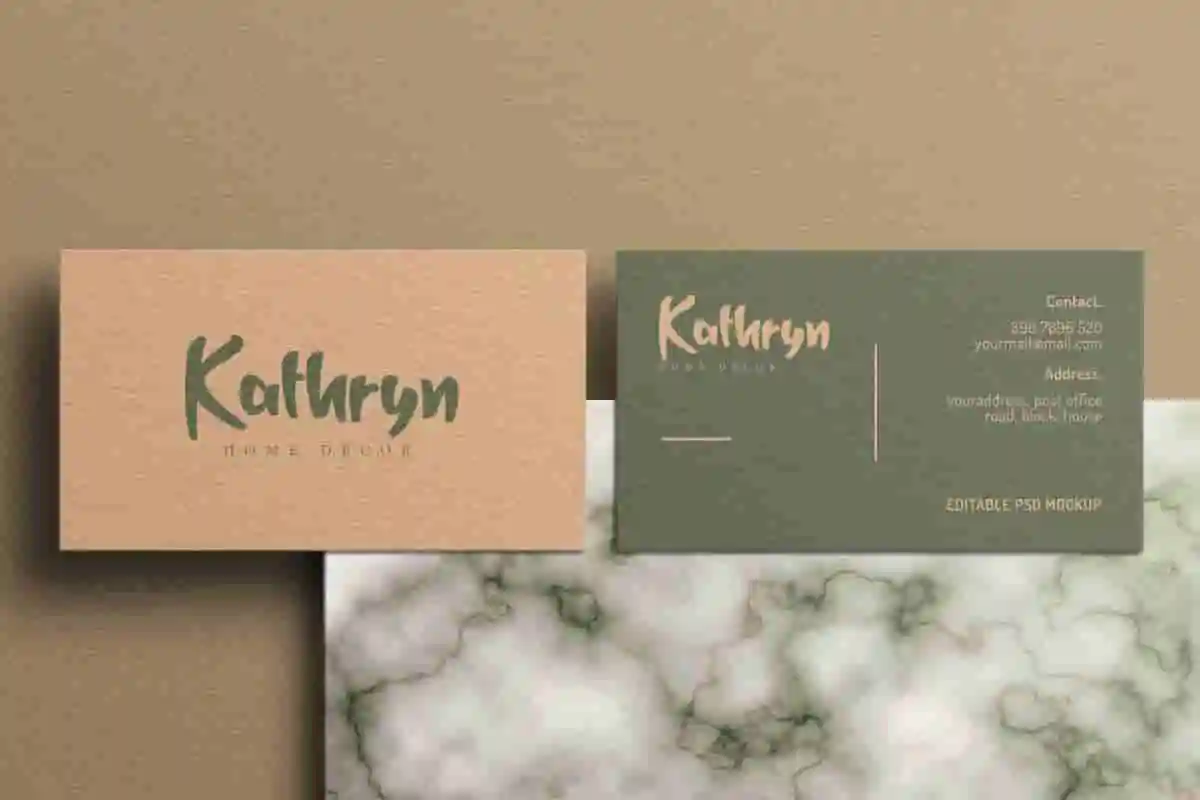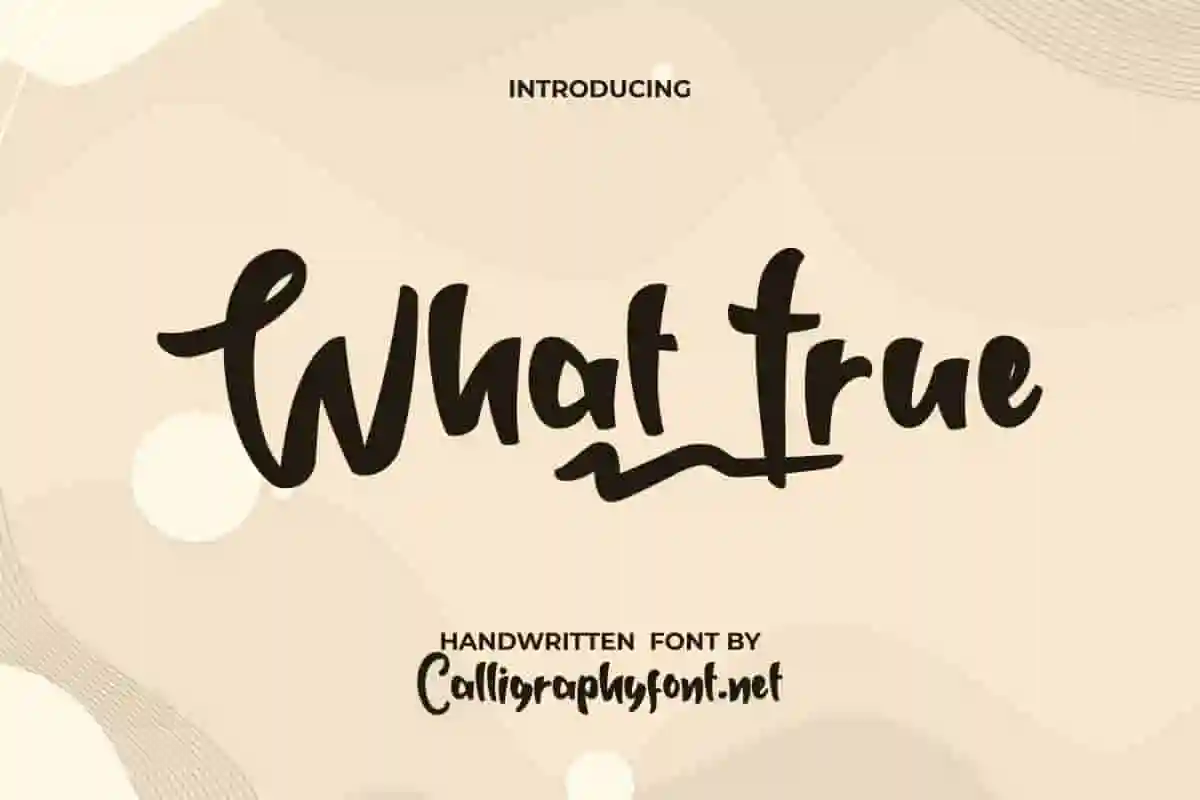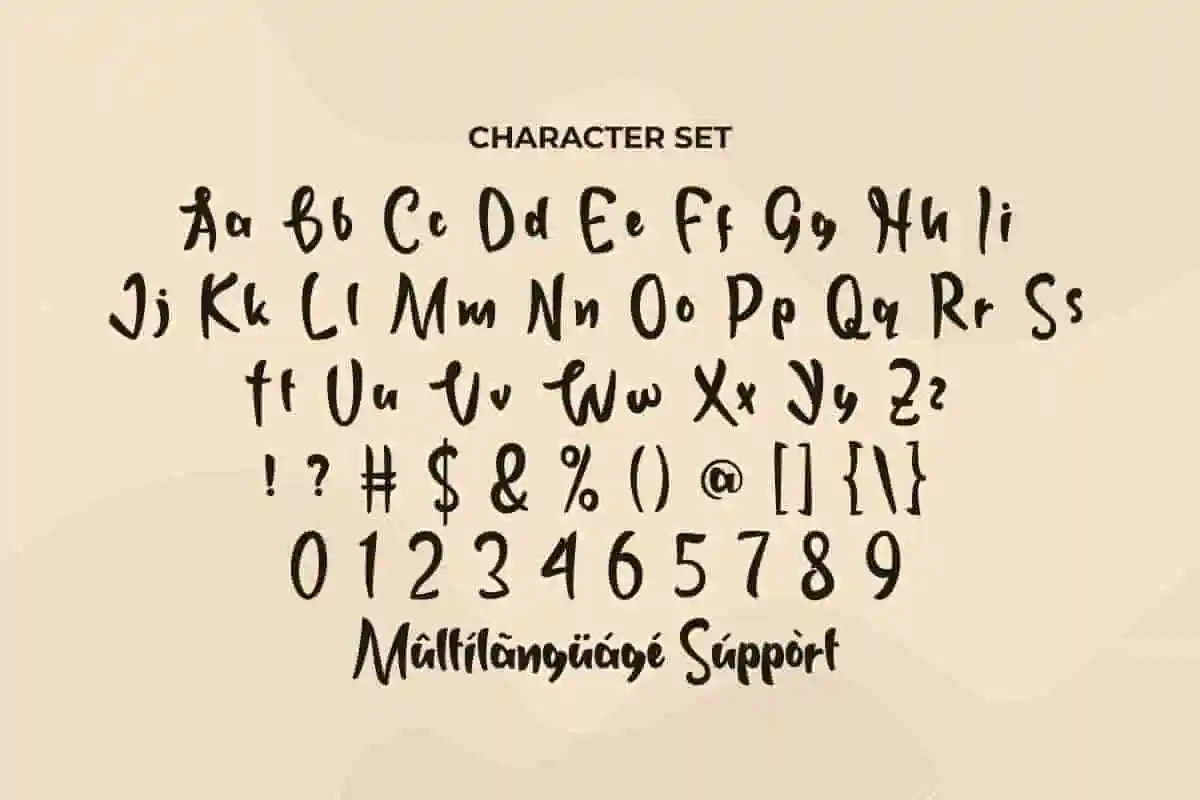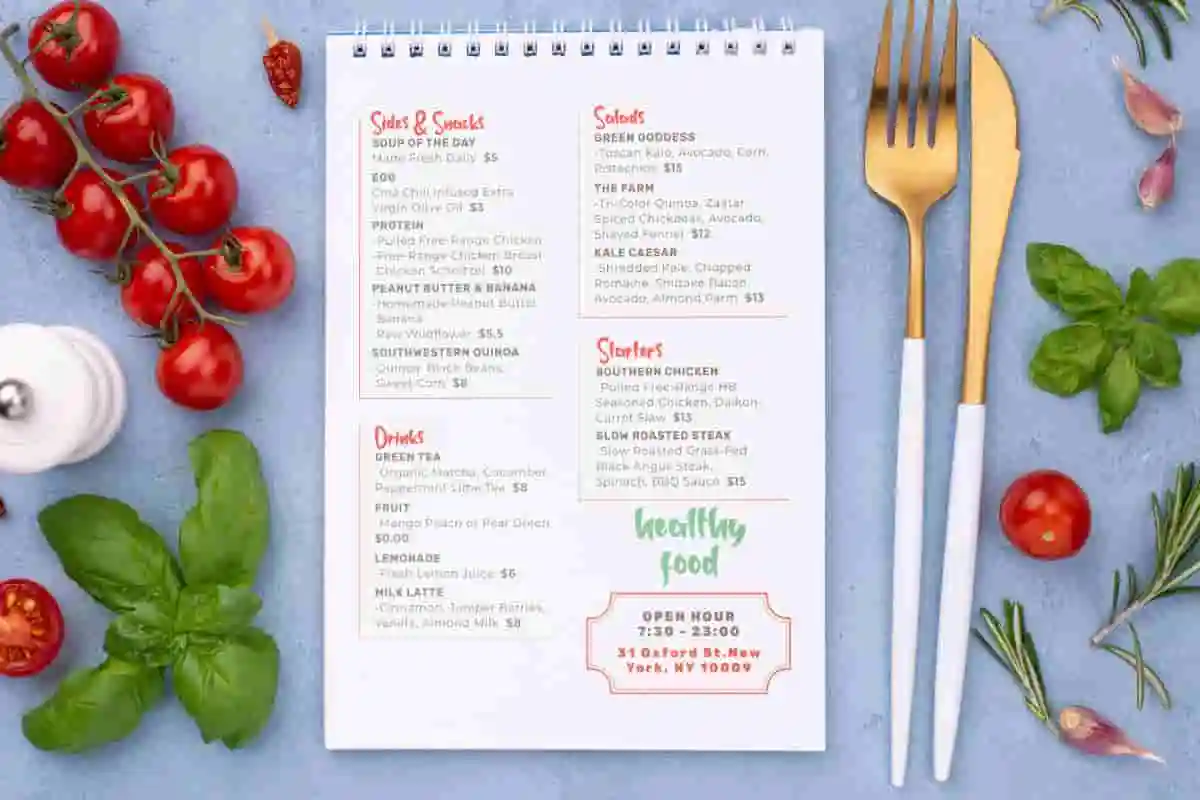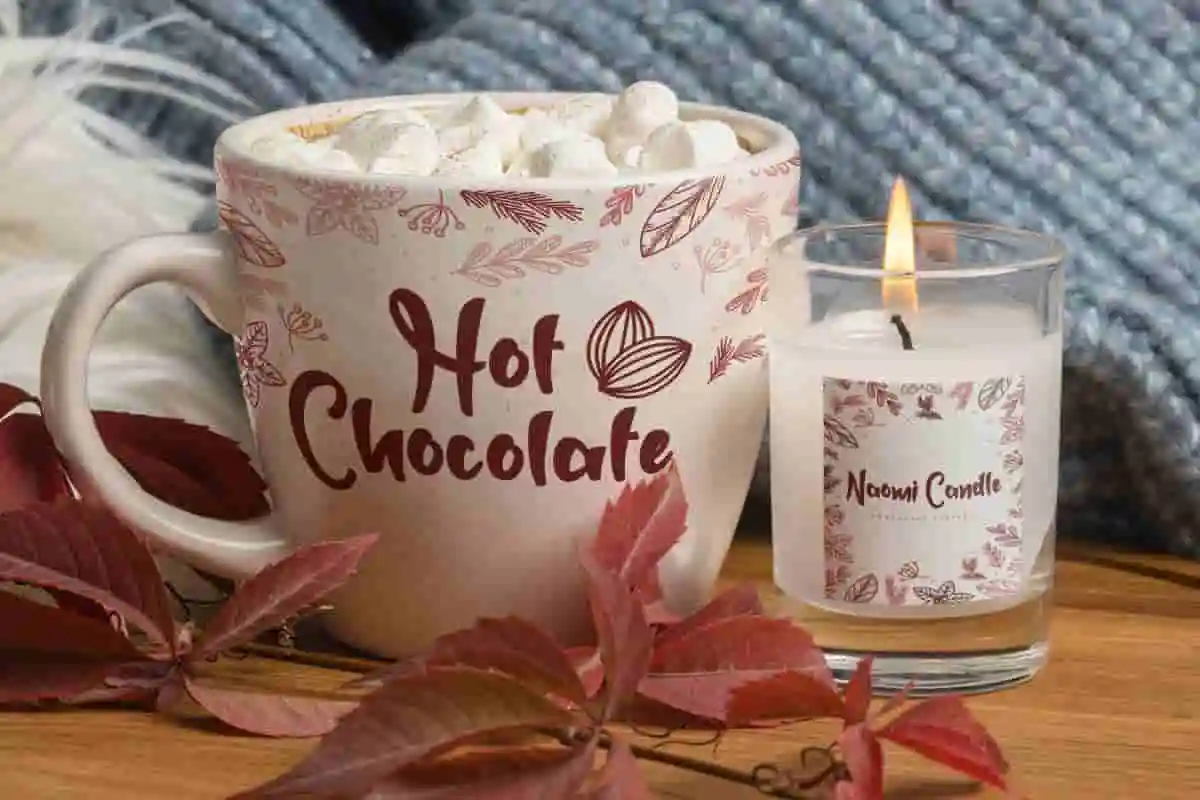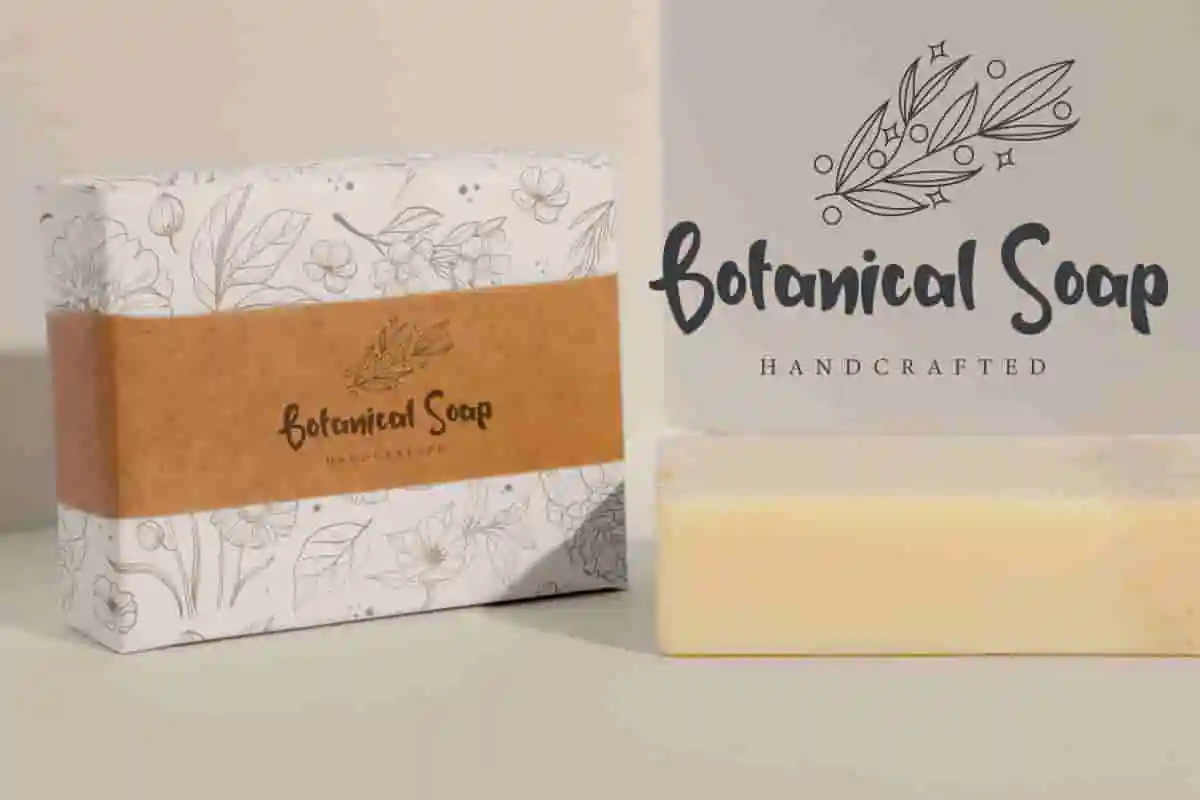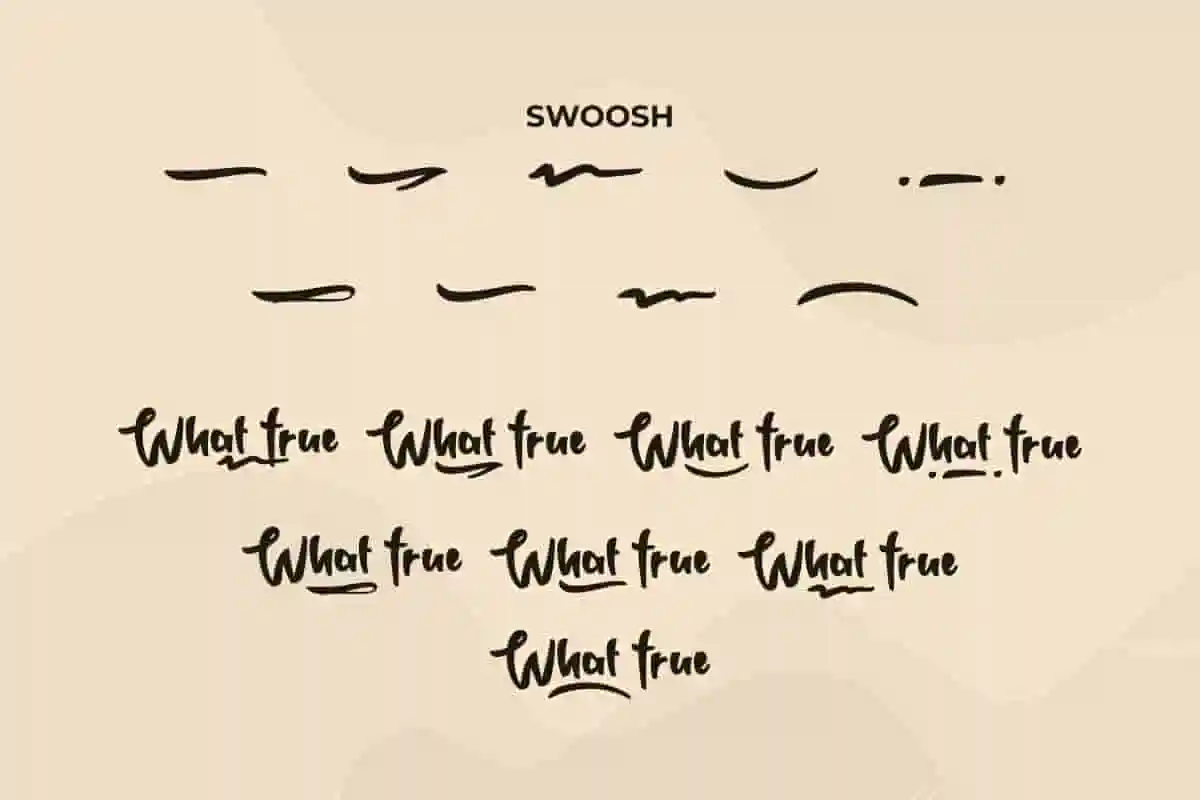
What True
What True handwriting Font
What True Font is a cute yet stylish handwritten font from CalligraphyFonts. Which can be used for any projects and industries, such as bakery, blog, furniture brand, handcraft, heading, label, menu, quote, restaurant, signage, stationery, and anything that requires an authentic casual look.
What True Font is a cute yet stylish handwriting font, created by Calligraphy Fonts. This cursive has thick and thin irregular brushes that make it unique. So, it gives a modern feel that will be perfect for your creative projects, such as brand logo, business card, label, menu, custom  design, title, etc.
What True is a beautifully crafted handwriting font that brings warmth, personality, and emotion to your designs. With a natural pen-stroke feel, this font mimics real handwriting—imperfect, expressive, and full of character. Discover the beauty of personal expression with What True, a modern handwriting font designed to bring your words to life. With smooth curves, natural strokes, and an authentic handwritten feel, this font adds emotional depth and warmth to any creative project.
This modern handwriting font was designed to bring a sense of authenticity and warmth to your work. Its flowing strokes and gentle curves capture the emotion of real penmanship, making it perfect for creative projects that need a personal touch. There’s something powerful about handwritten words—they feel honest, human, and full of emotion. What True captures that feeling in a beautifully designed handwriting font that brings authenticity to every project.
a graceful and modern handwriting font designed to capture the charm of natural penmanship. Soft, flowing, and full of personality, this font is the perfect choice for projects that need a personal, handwritten feel. Looking for a font that feels personal, authentic, and effortlessly stylish? Meet What True—a modern handwriting font designed to give your words a genuine, human touch.
• Lifestyle branding & logos
• Greeting cards & custom prints
• Wedding invitations & love letters
What True Font will be great for any industry including: architect, bakery, florist, homeware, kids stuff, restaurant, writer, and everything that needs a touch of charming handwritten. Carefully crafted to create perfection in writing and add aesthetics to each design to keep it easy to read with a stunning display.
What True Font comes with a full set of Uppercase and Lowercase Basic Characters, Number, a large range of Punctuation and Symbol, Swoosh, and also supports multilingual characters. Ready to use both on Windows machine or Mac with simple installations. It’s tested to work well in the Adobe Apps (Illustrator, Adobe InDesign, Adobe Photoshop) CorelDraw, and others. PUA Encode Characters means you can access all the glyphs and swashes with ease – Fully accessible without additional design software.